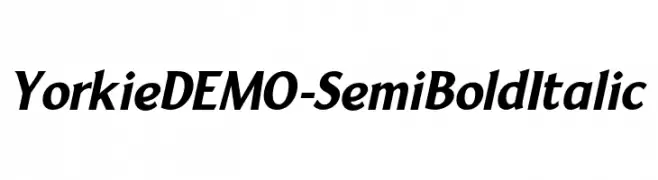
A semi-bold italic font with a dynamic and compact style, featuring moderate stroke contrast.
A bold and italicized font with strong, dynamic strokes.
A bold, italic handwritten font with a casual and friendly style.
A modern, bold italic font with a sleek and dynamic style.
A bold, italicized font with a dynamic, hand-drawn style and strong visual impact.
A bold, italicized font with a modern and sleek design.
A bold and italicized font with a modern and dynamic style.
A bold, italic font with a modern and dynamic style.
A bold and italicized font with a dynamic and elegant style.